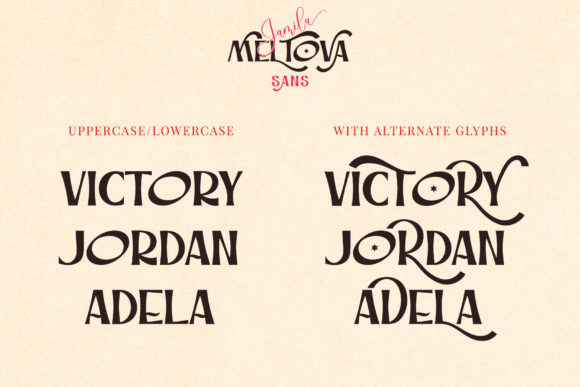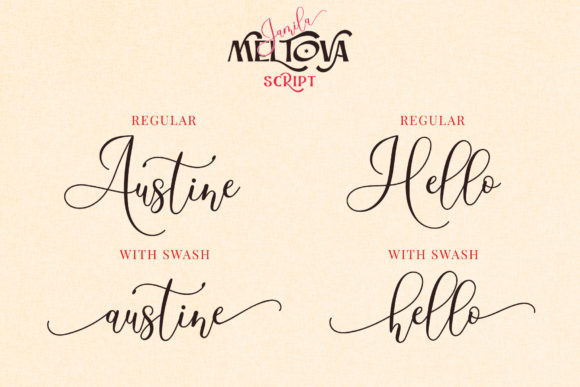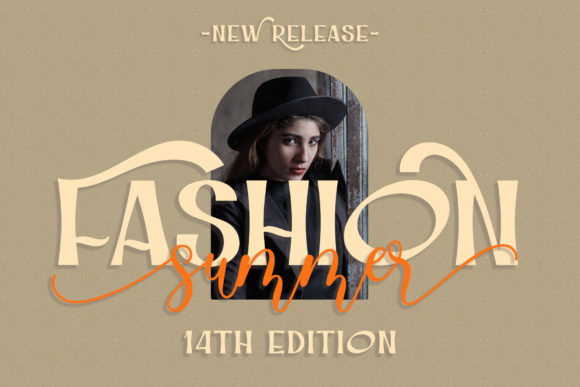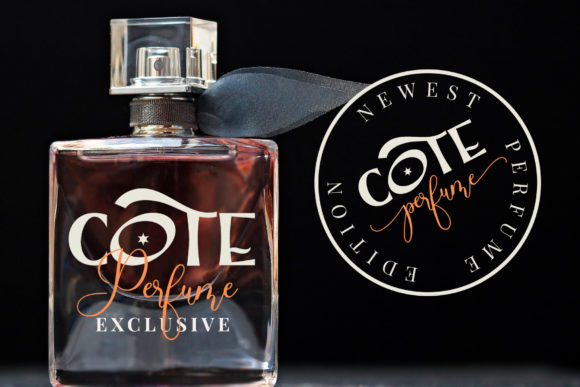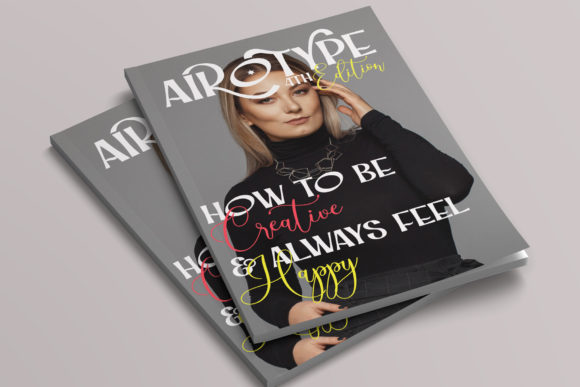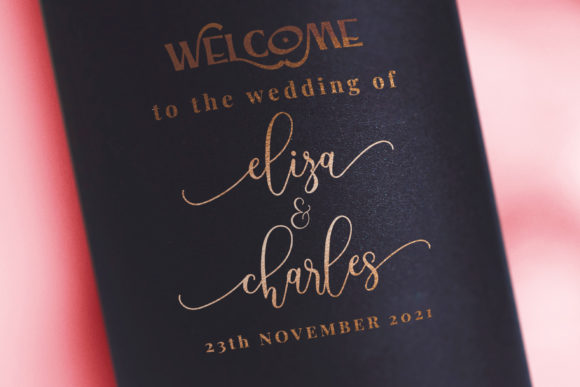
Introduction to Jamila Meltova Font Font
Fonts play a crucial role in design, and the Jamila Meltova Font font is a typeface that brings both character and versatility to any project. Whether you’re working on a branding project, a website, or a print design, the Jamila Meltova Font font offers a unique style that can elevate your work.
Jamila Meltova is a lovely duo font (sans serif and script).
This font is PUA encoded which means you can access all of the glyphs and swashes with ease Fall in love with its incredibly versatile style and use it to create spectacular designs.
Key Features of Jamila Meltova Font Font
Why Choose Jamila Meltova Font Font?
The Jamila Meltova Font font is more than just a typeface – it’s a design tool that helps you communicate your message with style and clarity. Its unique character set and versatile design make it suitable for a wide range of applications, from elegant invitations to bold headlines.
With its carefully crafted letterforms and balanced proportions, the Jamila Meltova Font font ensures readability and visual appeal across all mediums.
What makes Jamila Meltova Font font special?
The Jamila Meltova Font font stands out with its unique design, exceptional readability, and versatility across various design applications.